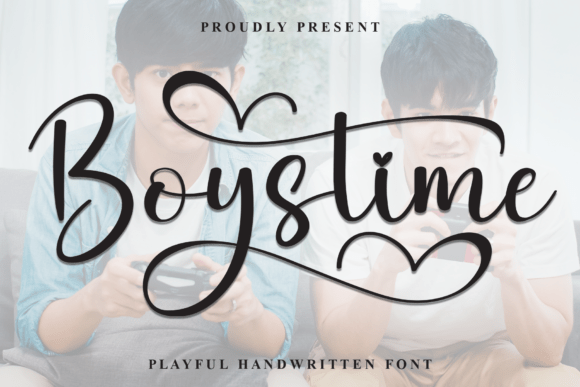
Remember that moment when you stumbled upon the perfect font to elevate your design project? It’s as if the universe conspired to bring together style and sophistication. For many designers, that moment is exactly what they’re looking for when working on high-end branding, wedding invitations, or social media graphics. And if you’re one of them, then get ready to fall in love with the Boystime Font – a stunning script font that adds a touch of luxury to every design.
This elegant script font is designed to make your designs stand out with its beautiful beginning and ending swashes, stylish curves, and decorative alternates. With the Boystime Font, you can create custom-made visuals that exude refinement and sophistication, making it an invaluable asset for any designer looking to elevate their craft.
Key Features of Boystime Font
- Unique Characteristics: Boystime Font features a distinctive, modern design with a blend of geometric and organic elements, making it perfect for creative and artistic applications.
Boystime Font Review
Overall, I’d say Boystime Font is an interesting choice for designers. While it’s not a new release, it still holds its own in the world of digital fonts.
- Unique character set: Boystime Font offers a distinctive set of characters that can add a touch of whimsy to your designs.
- Good for titles and headings: The font is well-suited for use in titles and headings, where you want to draw attention and create a sense of drama.
- Clean and modern aesthetic: Despite its playful feel, Boystime Font has a clean and modern aesthetic that can work well in a variety of design contexts.
- Limited legibility at small sizes: While the font is great for titles and headings, it can be a bit difficult to read at smaller font sizes.
- Not ideal for body text: Boystime Font is best used sparingly, as it can be fatiguing to read large blocks of text in this font.
- No language support: As of my knowledge cutoff, Boystime Font does not support languages other than Latin-based scripts.
Overall, Boystime Font is a fun and quirky choice for designers who want to add some personality to their work. While it has its limitations, it’s a great option for titles, headings, and other design elements where you want to create a sense of drama and whimsy.
Tips for Getting the Most Out of Boystime Font
- Use Boystime Font for headings and titles to add a touch of personality to your design.
- Combine Boystime Font with other fonts to create a unique and eye-catching design.
Boystime Font is perfect for:
- Designing playful and fun graphics for social media and websites.
- Creating eye-catching flyers and posters for events and promotions